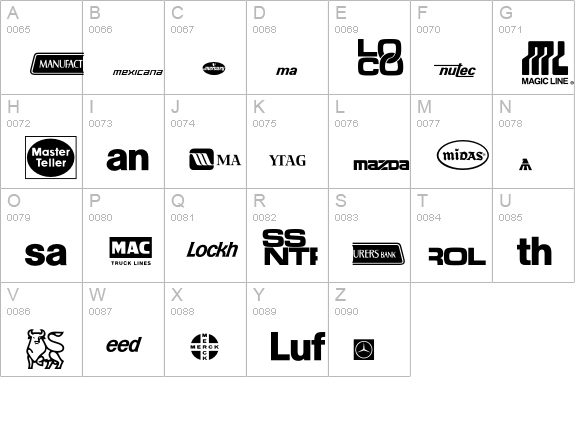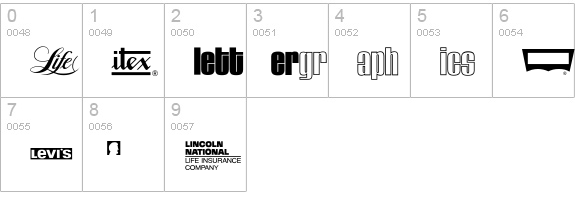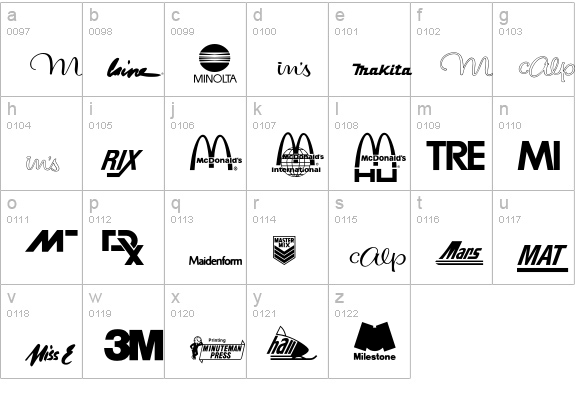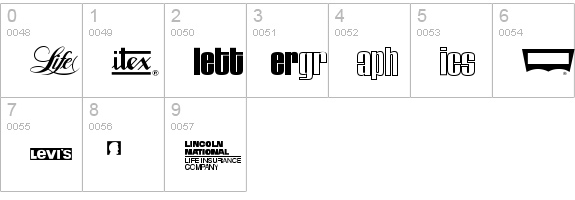
LogosCompanyP11 Font Details
LogosCompanyP11 font is a versatile and modern typeface that exudes sophistication and professionalism. With clean lines and sharp edges, this font is perfect for creating sleek logos, branding materials, and eye-catching designs. Its sleek and elegant appearance makes it ideal for a wide range of projects, from business cards to websites to advertisements. What sets LogosCompanyP11 font apart is that it is available for free download at FontsMarket.com. This means that you can easily access this high-quality font without any cost, making it a valuable addition to your font collection. Whether you are a designer looking to elevate your projects or a business owner seeking a unique and stylish font for your branding, LogosCompanyP11 is the perfect choice. Download it today and see how it can enhance your designs!